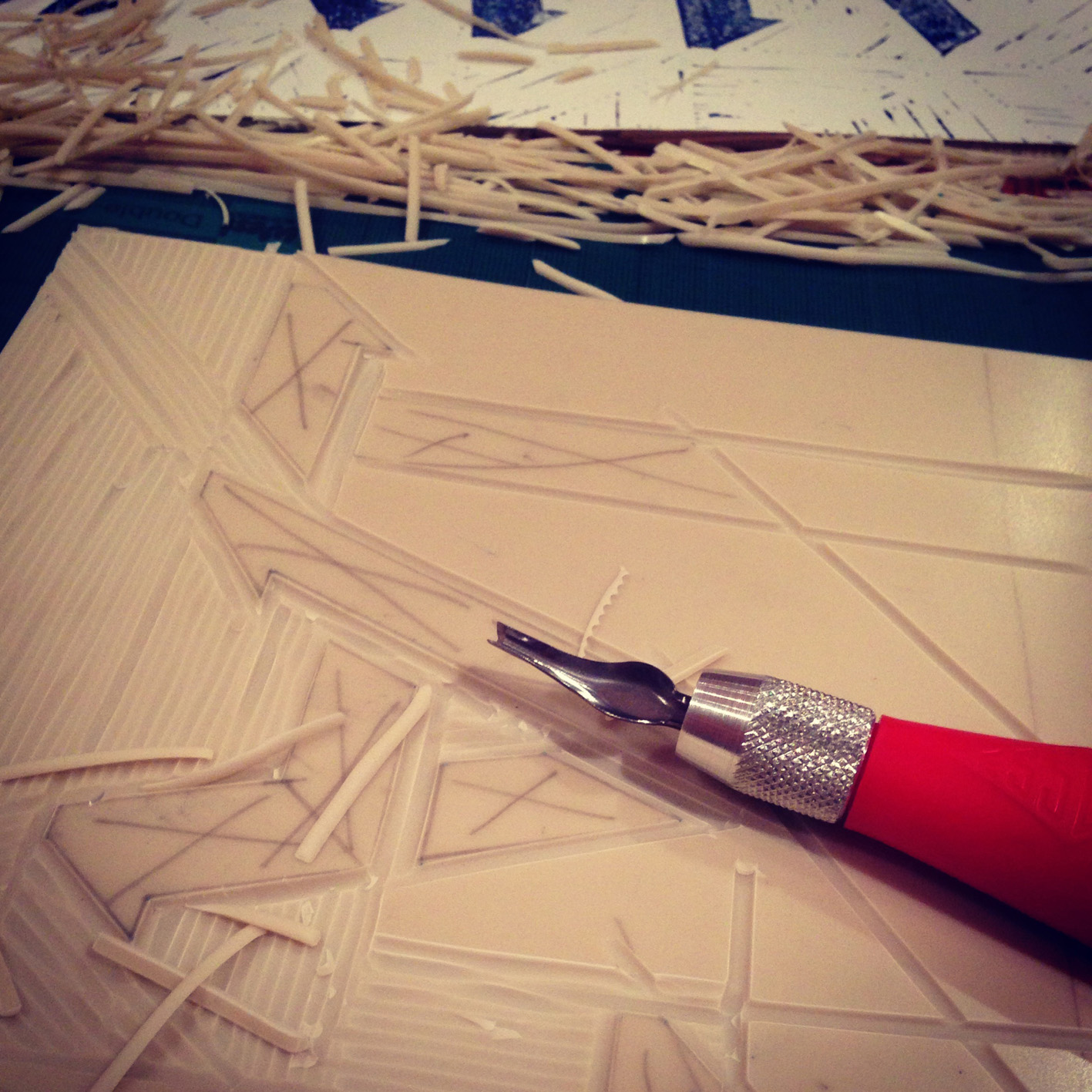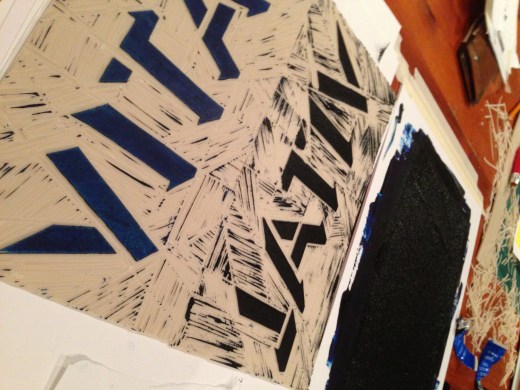
‘Vital’ by Kieran O’Keeffe
“I decided to do a lino print of my selected word as I knew the textures I could generate through the depth and direction of the cuts would add the elements of industry and creativity which I feel are a huge part of my London experience.”
“I moved to London 4 years ago and I am constantly amazed at the energy and positive attitude of people I meet everyday. It’s why I love being here. The typeface I selected is Umbra. By using a typeface which is defined only by its shadow the composition almost gives the view of an arial shot of a busy city with the word ‘vital’ standing tall influencing all around it.”